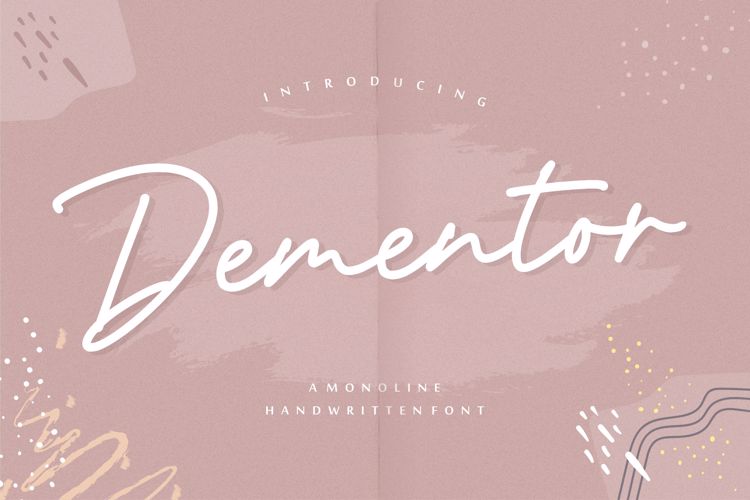
Dementor Font
Proudly Present, Dementor Font.
Dementor is a Monoline Handwritten font.
Dementor is perfect for product packaging, branding project, megazine, social media, wedding, or just used to express words above the background.